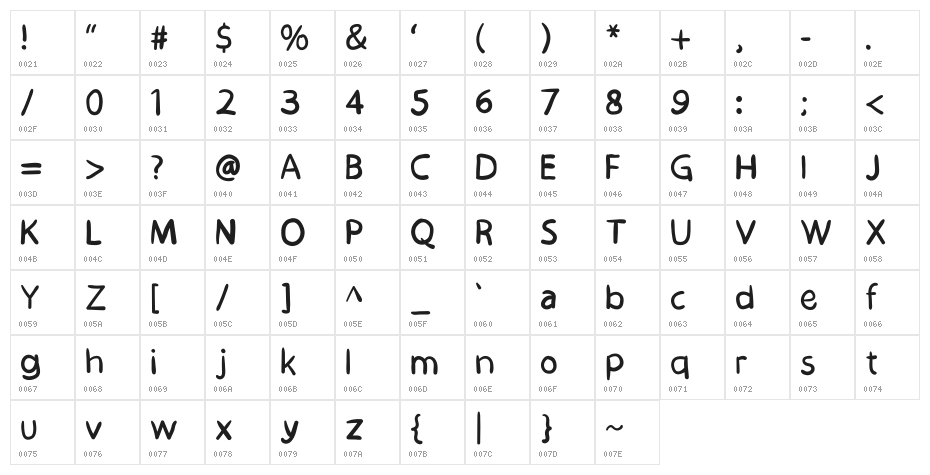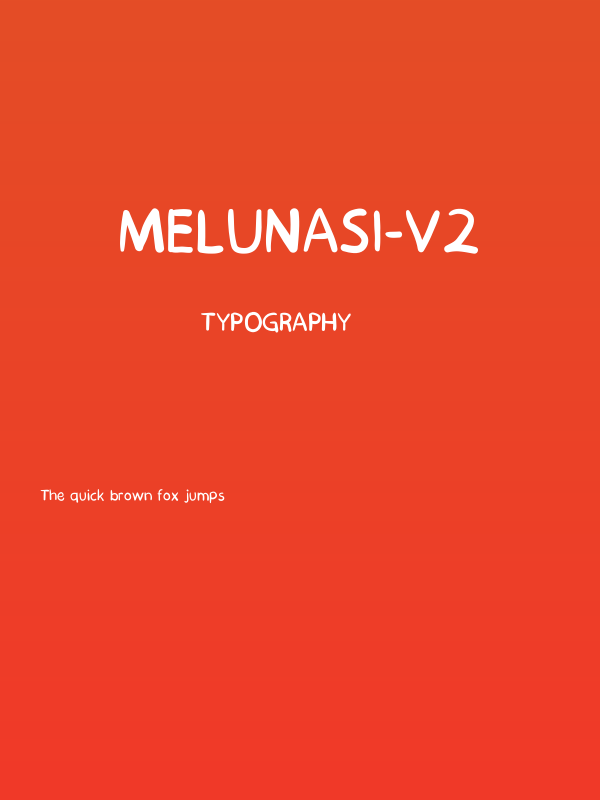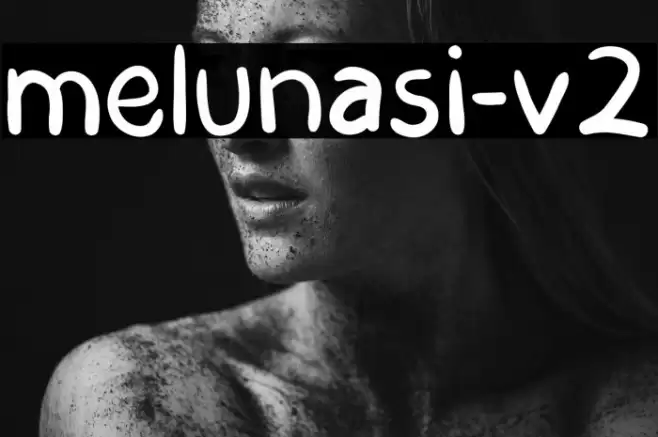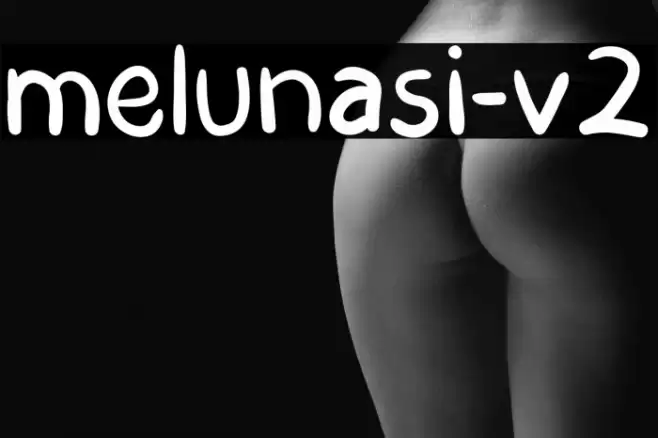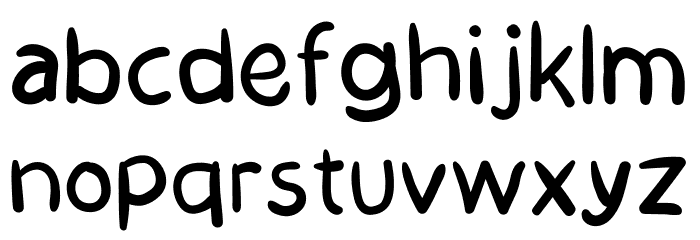
melunasi-v2 Font
This playful and rounded font exudes a casual and friendly vibe, making it perfect for informal and creative projects. The characters are bold and slightly irregular, giving them a hand-drawn appearance that adds a personal touch. The uppercase and lowercase letters maintain a consistent style, with smooth curves and a slightly uneven baseline that enhances its whimsical charm. The numerals and special characters are equally well-crafted, ensuring versatility across various applications. This font's approachable and lively nature makes it ideal for projects that aim to convey warmth and approachability.
| Proposed Projects | Children's books, greeting cards, playful branding, social media graphics. |